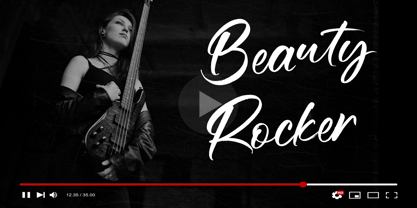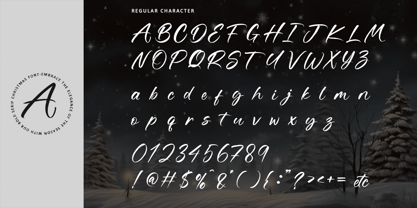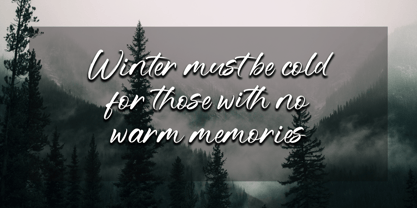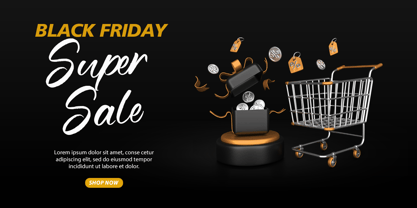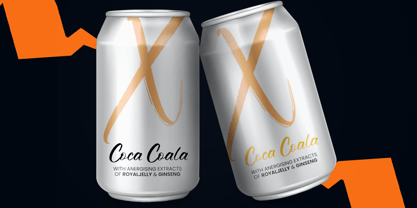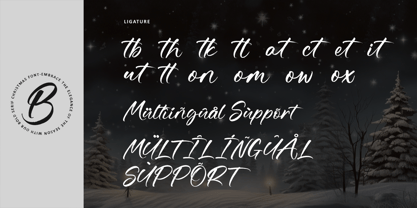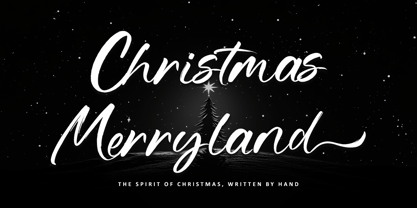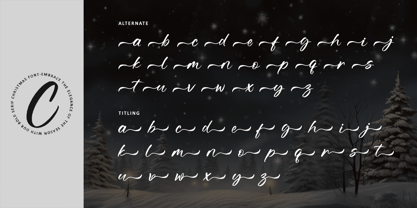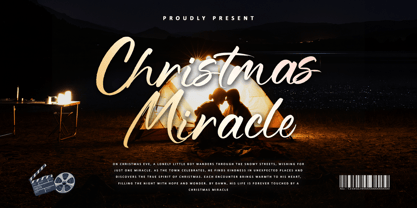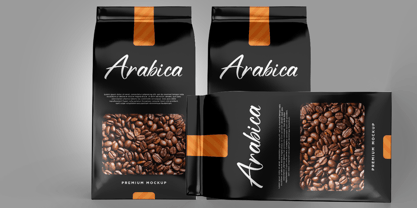
Christmas Merryland
The Christmas Merryland Font Family was designed by Thomas Aradea and published by Letterara. Christmas Merryland contains 2 styles and family package options. More about this family
Introducing Christmas Merryland, a festive brush handwritten font that captures the warmth and spirit of the holiday season. Each stroke is painted with a natural brush touch, blending bold energy with a handmade charm that feels authentic and joyful. Designed to add life and personality to your Christmas projects, Christmas Merryland is perfect for posters, packaging, greeting cards, branding, and seasonal crafts.   Its slightly rough texture and flowing movement bring a cheerful, organic look — like brush letters drawn with passion and joy. PUA encoded for easy access to alternates and ligatures, this font lets you create designs that feel alive, creative, and full of holiday magic.   Bring the festive vibe to your work with Christmas Merryland — a brush handwritten font made to celebrate creativity, warmth, and the joy of the season.